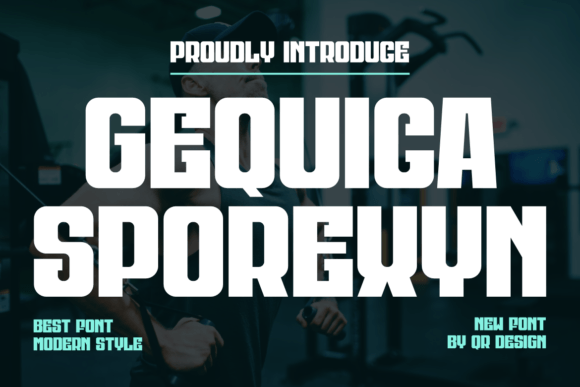
Behold, the Gequica Sporexyn Font, a striking and genuine display font that will amplify your branding projects to remarkable heights. Its captivating strokes and bold presence are a testament to its remarkable versatility, making it an ideal choice for logos, banners, T-shirt designs, sports-themed projects, and a myriad of other creative endeavors.
Journey into the realm of extraordinary with Gequica Sporexyn. Its distinct character shines through in a diverse spectrum of contexts, transforming your work into an awe-inspiring spectacle. Its boldness commands attention, while its authenticity evokes a sense of genuine connection with your audience.
Picture your logo, emblazoned with the powerful Gequica Sporexyn font, standing out boldly amidst a sea of mediocrity. Envision your banners, adorned with its captivating strokes, attracting gazes and igniting curiosity. Imagine your T-shirts, emblazoned with its sporty, energetic vibe, radiating an aura of athleticism and活力.
Gequica Sporexyn is more than just a font; it's an artistic expression that breathes life into your creative visions. Its bold and authentic strokes will make your work stand out from the crowd, leaving an unforgettable impression on those who encounter it.
Immerse yourself in the world of Gequica Sporexyn and unleash your creativity. Its versatility knows no bounds, allowing you to weave it into a tapestry of stunning designs that reflect your unique style and vision. Let its bold strokes elevate your work to new heights of excellence.